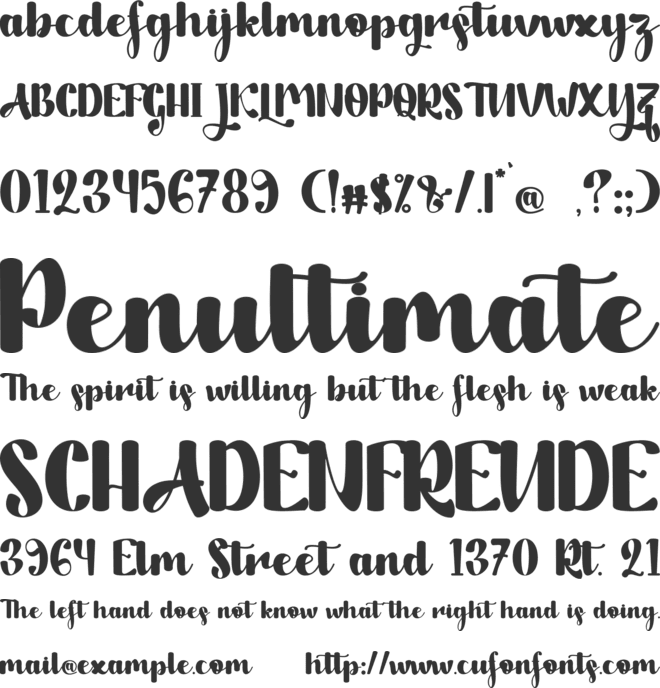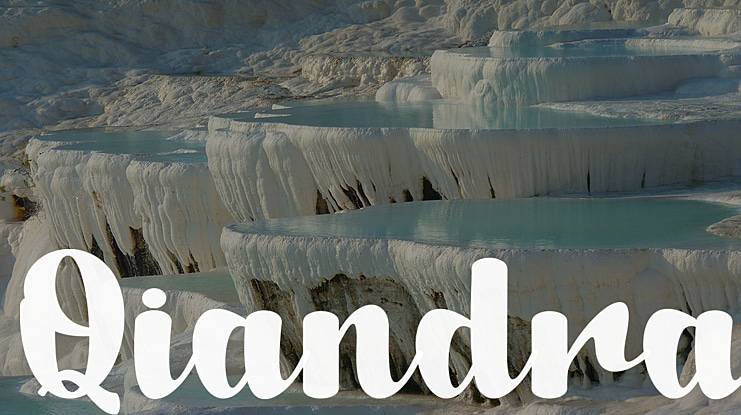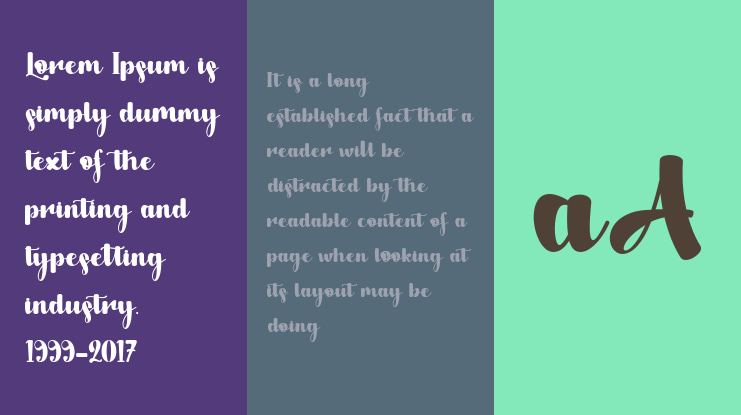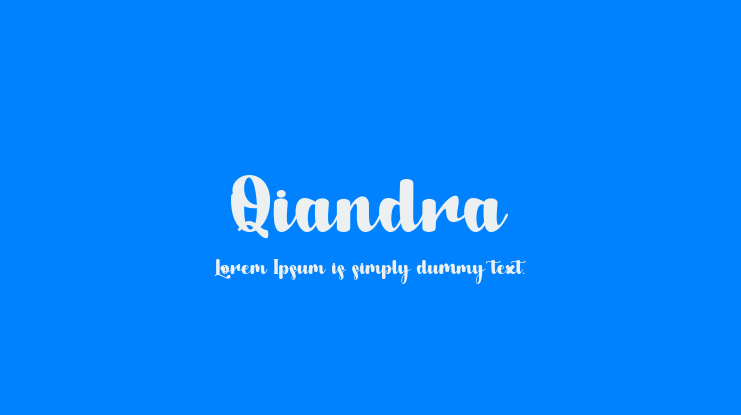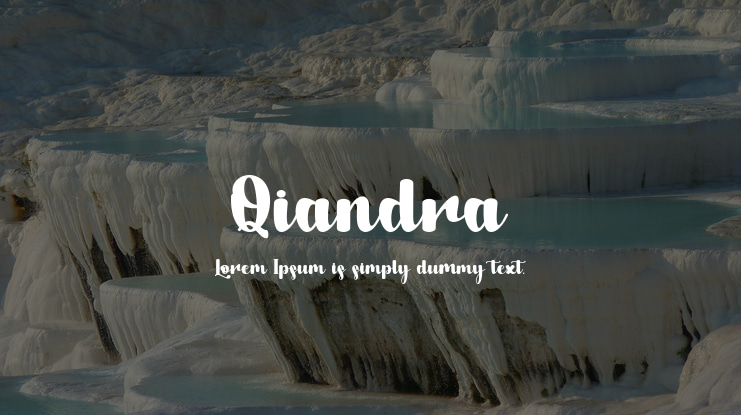
Qiandra Font Family
Qiandra is the latest bold script from Arkrist Letters. Qiandra was made with great care so as to produce a very elegant, modern, stylish, and very beautiful letter shape.
Qiandra font is perfect for designs, logo fonts, posters, T-shirt designs, greeting cards, etc.